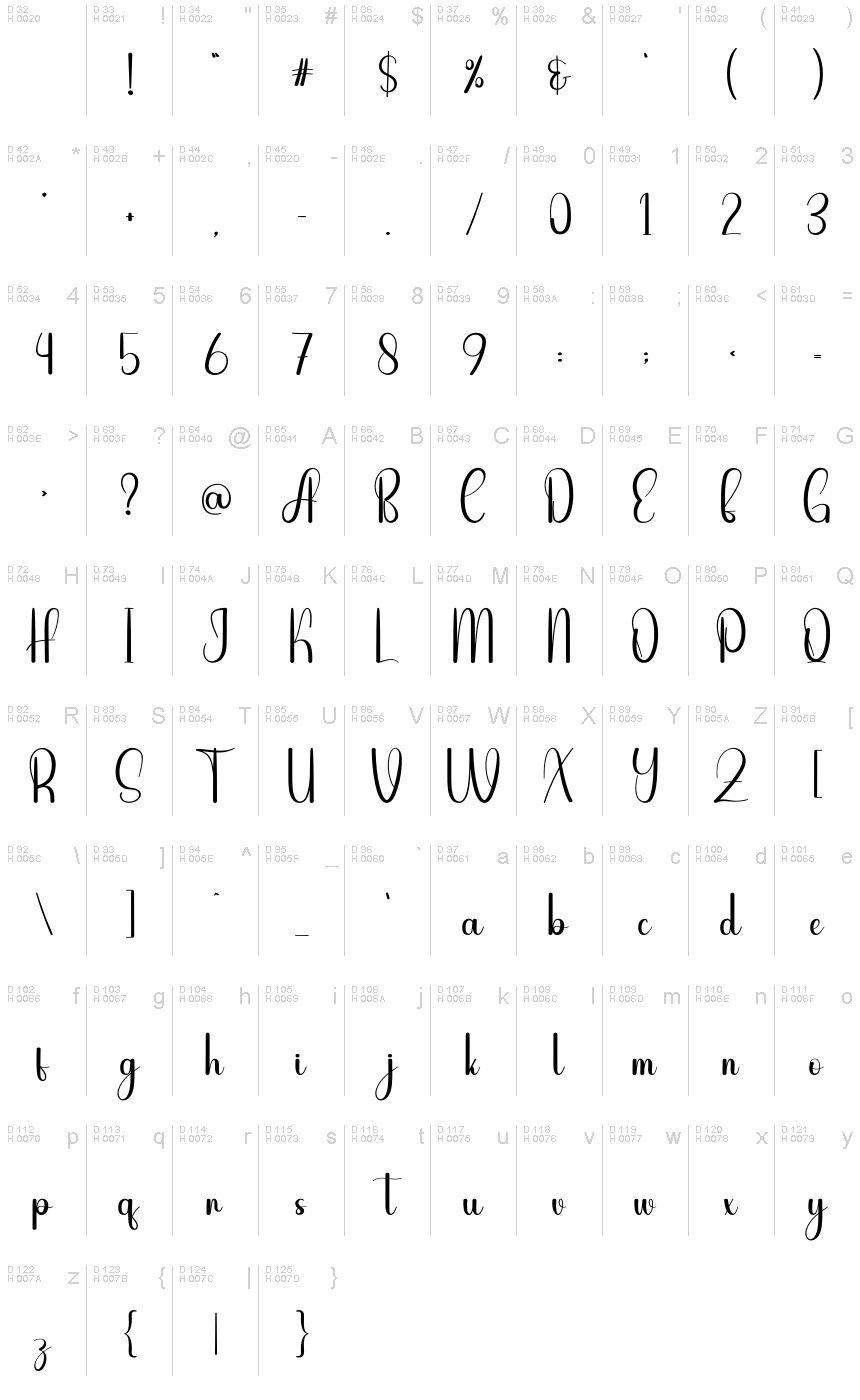
Citicon
Citicon is a captivating handwritten font that exudes a sense of organic elegance. The fluid, cursive strokes convey a natural, expressive quality, lending a sophisticated yet approachable touch to any design. Its distinctive letterforms, with their subtle flourishes and dynamic curves, create a captivating visual rhythm that immediately captures the viewer's attention.
The versatility of Citicon shines through, making it a versatile choice for a wide range of design applications. From high-end branding and packaging to editorial layouts and personal stationery, this font effortlessly elevates the aesthetic, adding a touch of refined artistry to any project.